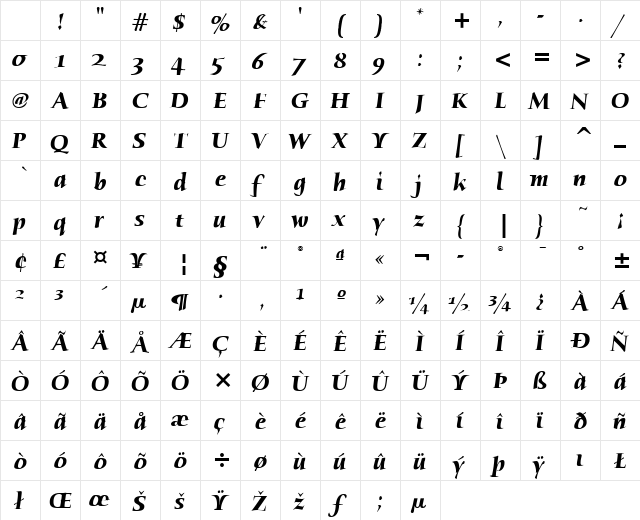
Complete Humana Serif ITC Bold Italic glyph index. Displaying only characters natively supported by Humana Serif ITC Bold Italic font.
Humana Serif ITC carries the refined structure of traditional serif typography, with bracketed terminals and considered proportions that communicate credibility and craft. The slanted form adds forward momentum and visual energy. Its bold stroke weight gives it real presence on the page.